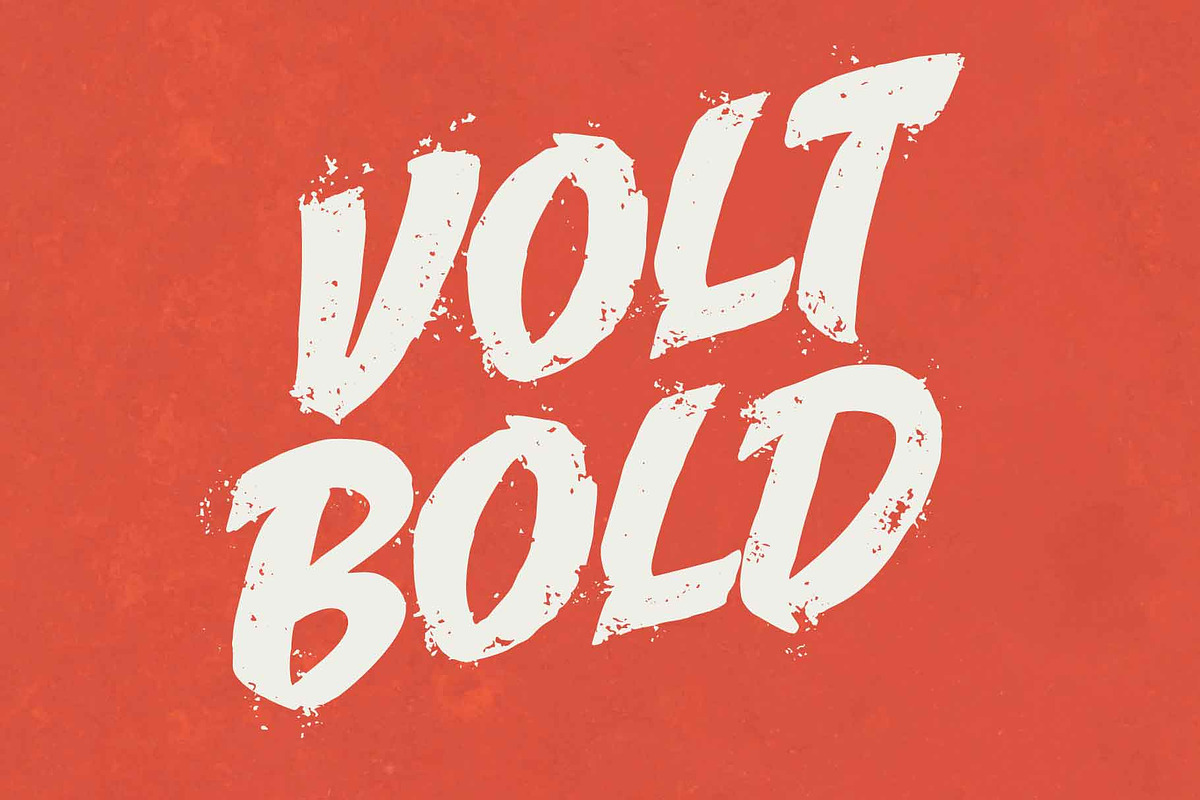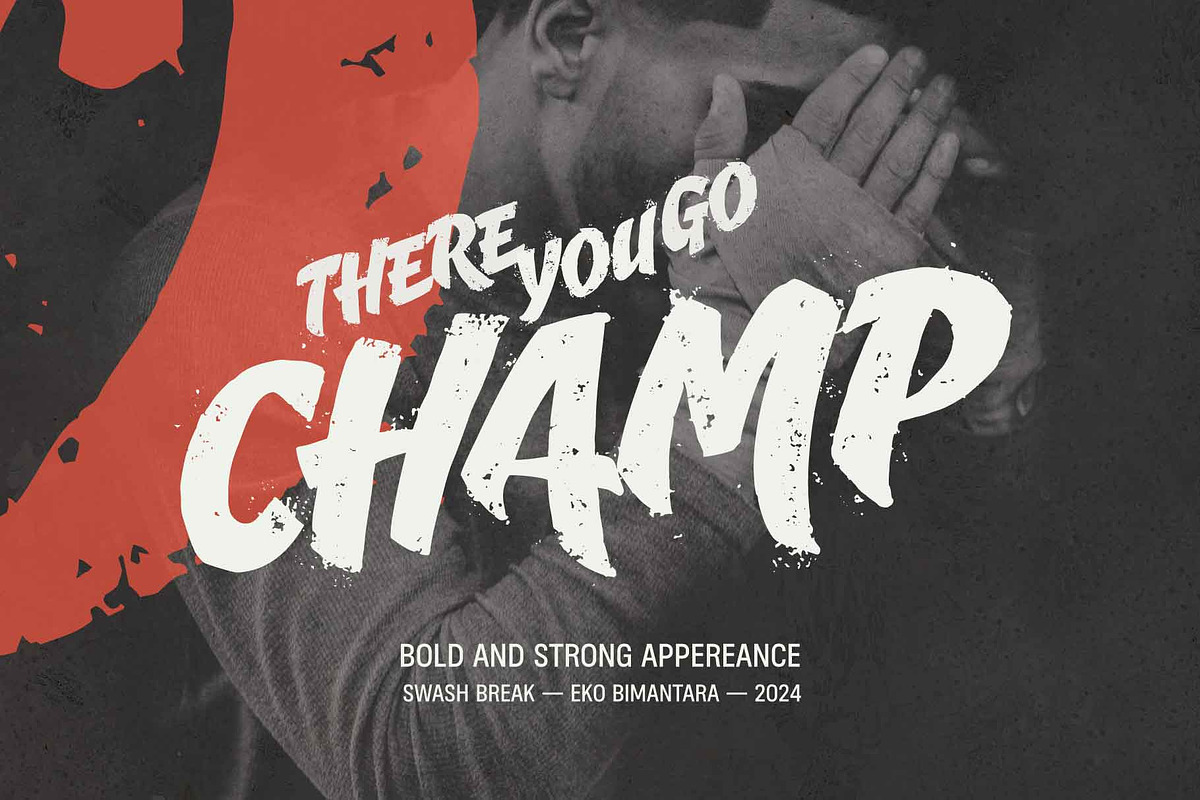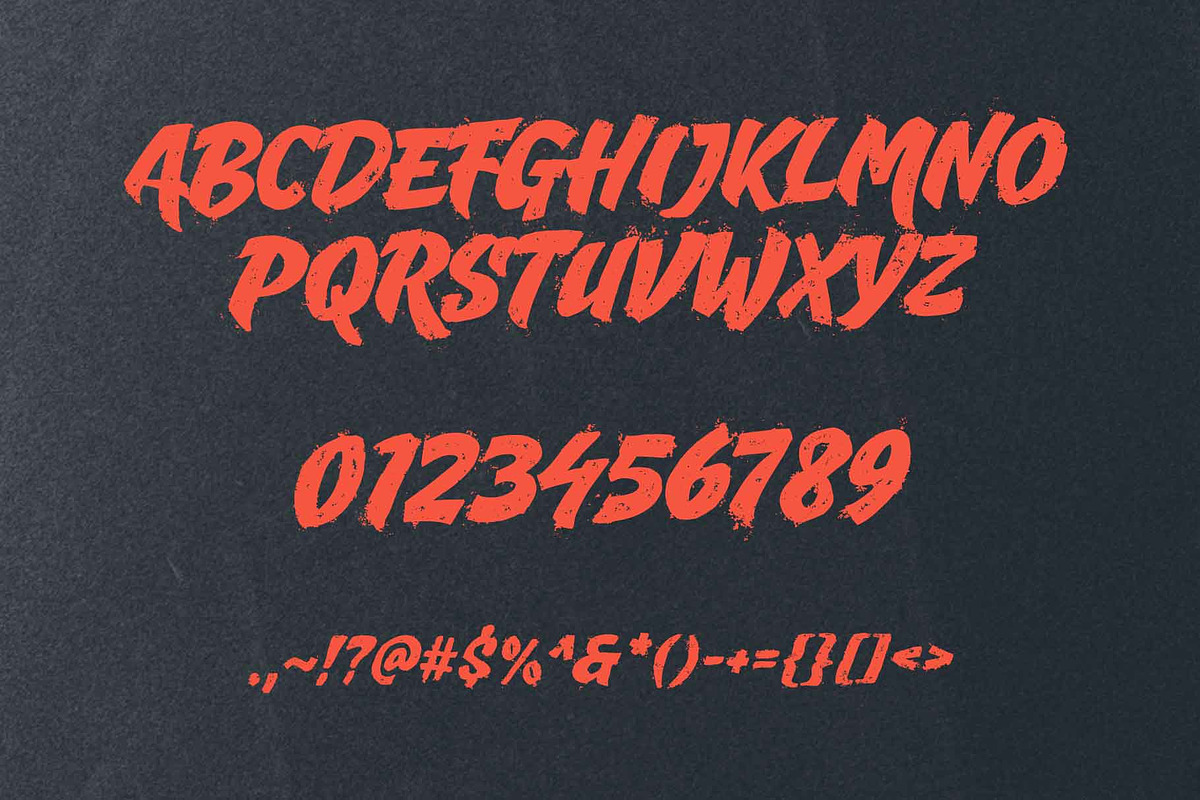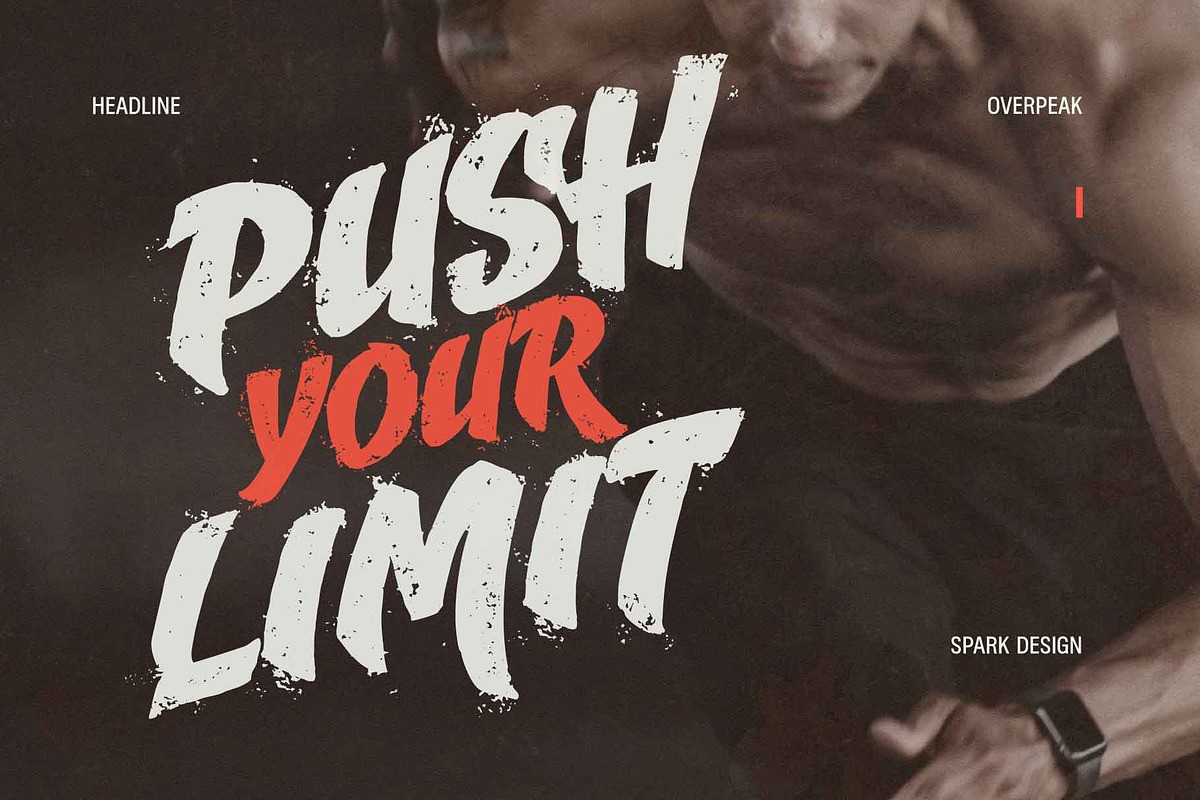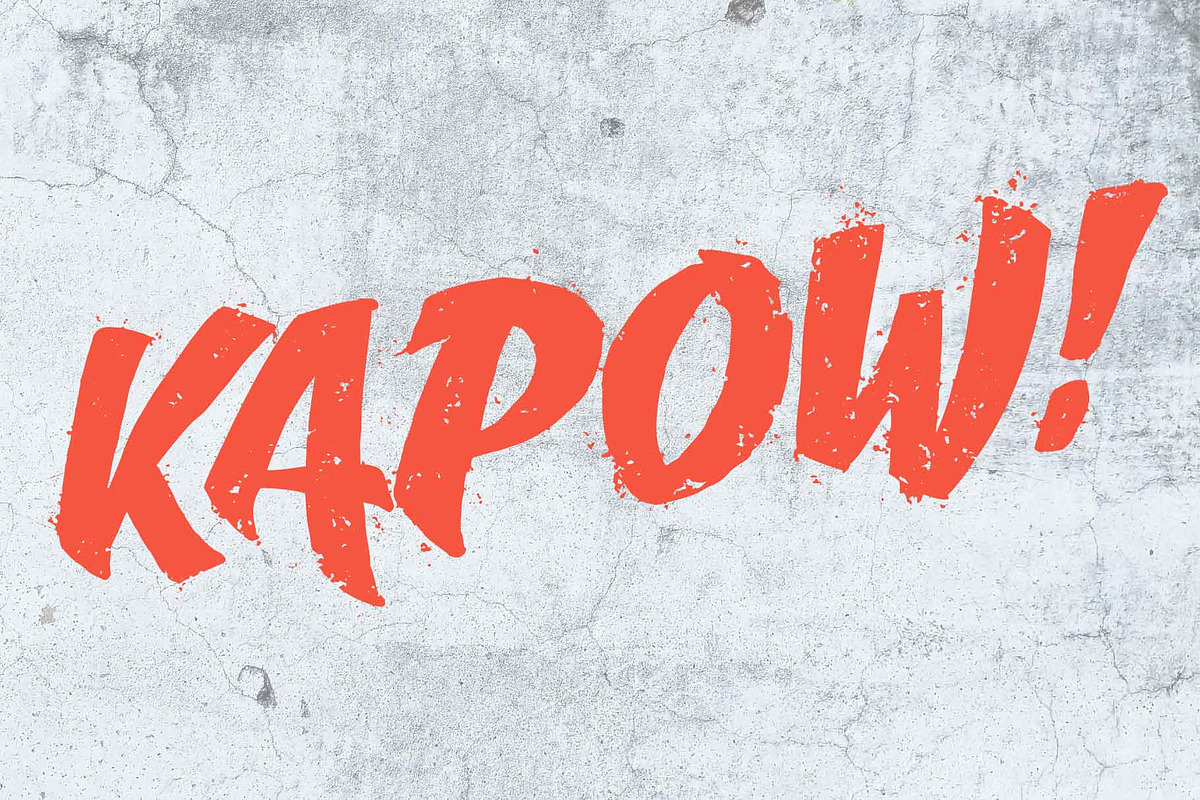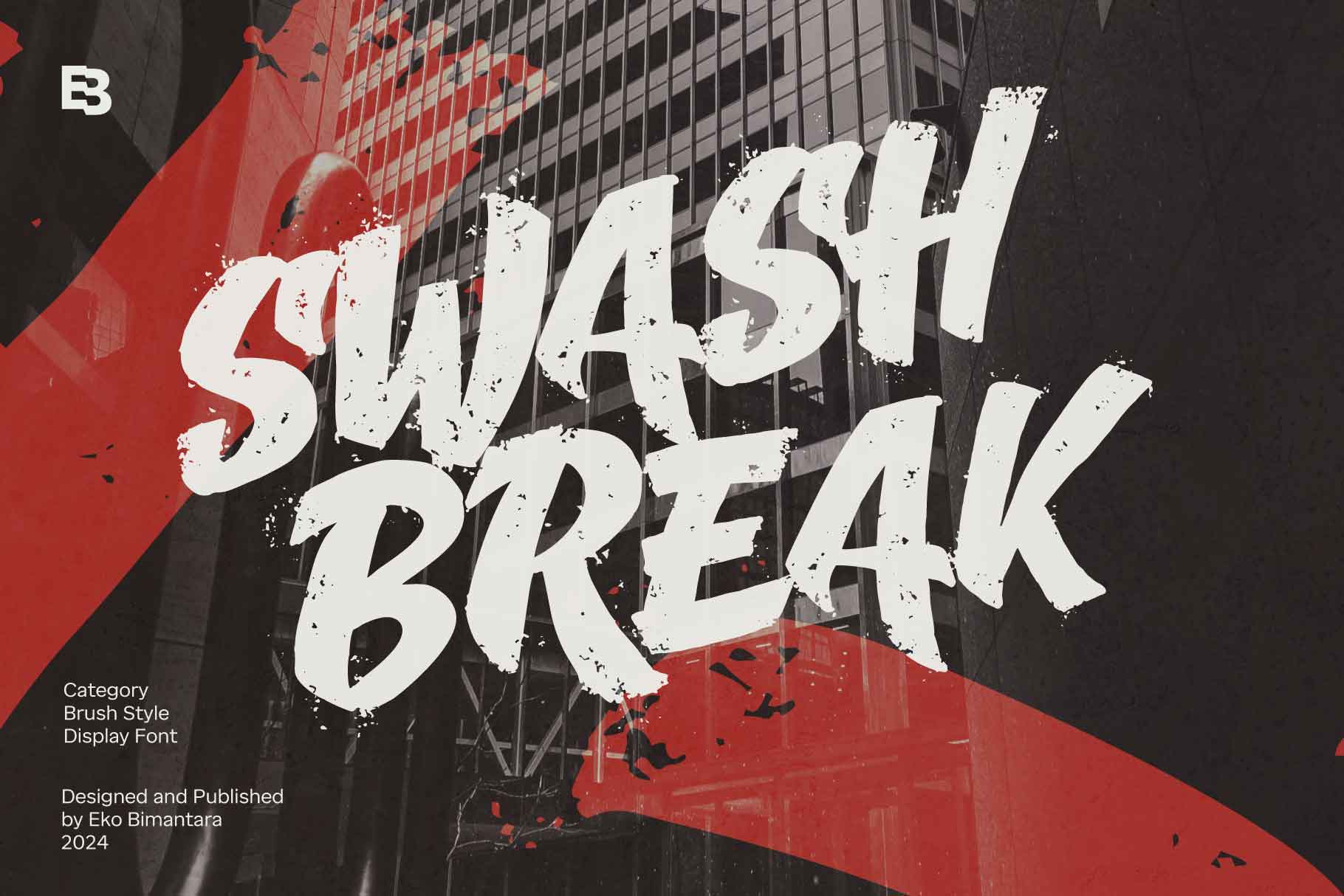
Swash Break; Brush Display Font
Swash Break is a bold brush display font featuring strong, rough, and masculine characteristics with dynamic brush strokes and scatter effects. Designed in an all-caps style, it is perfect for adding a bold, expressive touch to artistic, rough, and striking designs. Ideal for branding, titles, t-shirts, and packaging, Swash Break fits various design themes that require a raw, powerful presence. Its versatility makes it well-suited for display purposes in large sizes, headers, websites, brand identities, and other broad graphic design and creative projects.